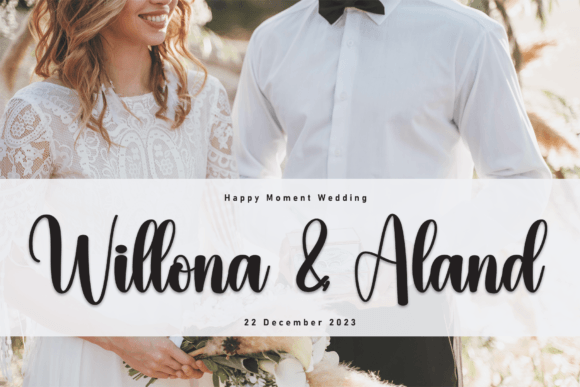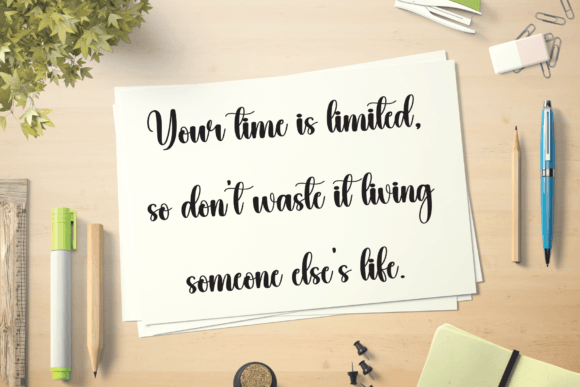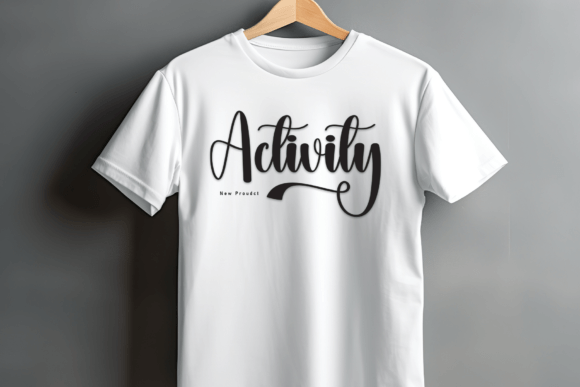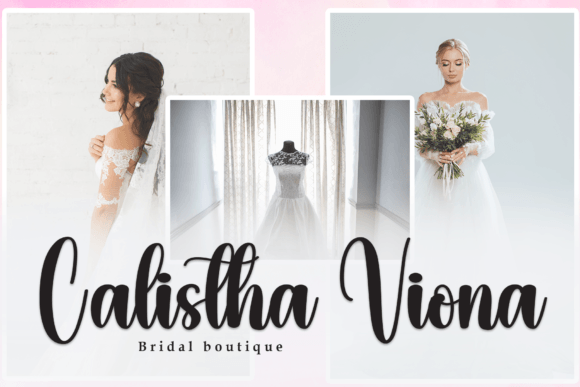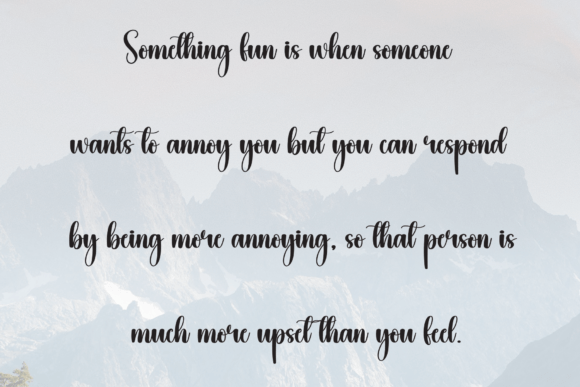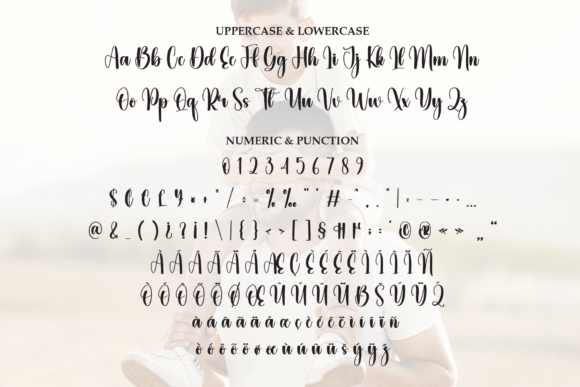
Daddy Font: Elevate Your Designs with Elegance and Sophistication
In the world of typography, a well-crafted font can make all the difference in elevating your designs to new heights. Introducing Daddy Font, a stunning handwritten font that is sure to capture your heart. With its perfect blend of classic calligraphic influences and modern flair, Daddy Font is the ultimate choice for designers and crafters looking to add a touch of elegance and sophistication to their projects.
The Story Behind Daddy Font
Daddy Font is an exquisite handwritten font, masterfully designed to become a true favorite among designers and crafters. Its creator, with a passion for typography and a keen eye for detail, has carefully crafted each letterform to exude a sense of luxury and refinement. The result is a font that feels both contemporary and fresh, while still maintaining its classy calligraphic roots.
What Makes Daddy Font Special?
So, what sets Daddy Font apart from other fonts in its category? Here are a few key features that make it a standout:
- Unique Letterforms: Daddy Font boasts beautifully crafted letterforms that are both elegant and distinctive. Each letter has been carefully designed to showcase a sense of movement and fluidity, making it perfect for a wide range of design applications.
- Classy Calligraphic Influences: Daddy Font’s calligraphic roots are evident in its flowing lines and refined strokes. This font is perfect for designers looking to add a touch of sophistication and luxury to their designs.
- Contemporary and Fresh: Despite its classic influences, Daddy Font feels remarkably contemporary and fresh. Its modern twist makes it suitable for a wide range of design projects, from branding and packaging to wedding invitations and more.
- Versatile: Daddy Font is incredibly versatile, making it perfect for a variety of design applications. Use it for headlines, body copy, or even as a decorative element – the possibilities are endless!
Daddy Font is a dream come true for designers and crafters looking to elevate their projects to new heights. Whether you’re working on a branding project, creating wedding invitations, or designing packaging, this font is sure to impress. Its elegant and sophisticated feel makes it perfect for:
- Branding and Logo Design: Use Daddy Font to create a lasting impression with your brand’s identity.
- Wedding Invitations and Stationery: Add a touch of luxury and romance to your wedding designs with Daddy Font.
- Packaging Design: Elevate your packaging designs with a font that exudes elegance and sophistication.
- Digital and Print Media: Use Daddy Font in your digital and print media projects, such as brochures, flyers, and more.
Get Ready to Fall in Love
In conclusion, Daddy Font is a truly exceptional handwritten font that is sure to elevate your designs to new heights. With its unique letterforms, classy calligraphic influences, and contemporary feel, it’s the perfect choice for designers and crafters looking to add a touch of elegance and sophistication to their projects. So go ahead, give Daddy Font a try, and experience the difference it can make in your designs.